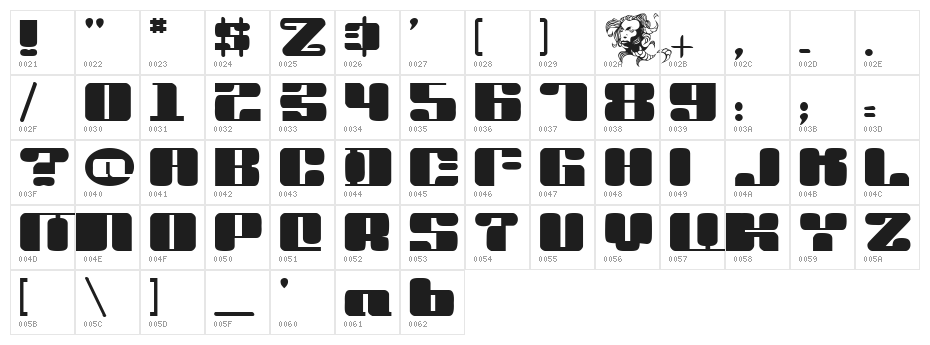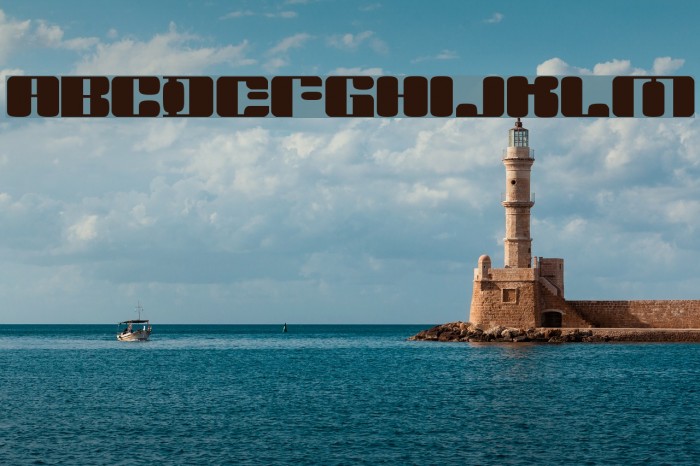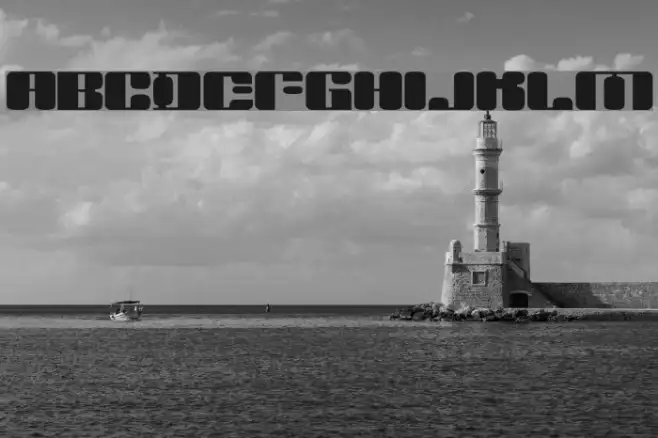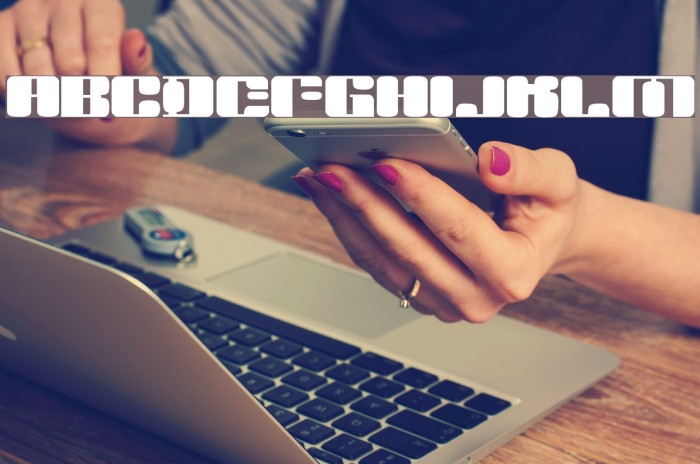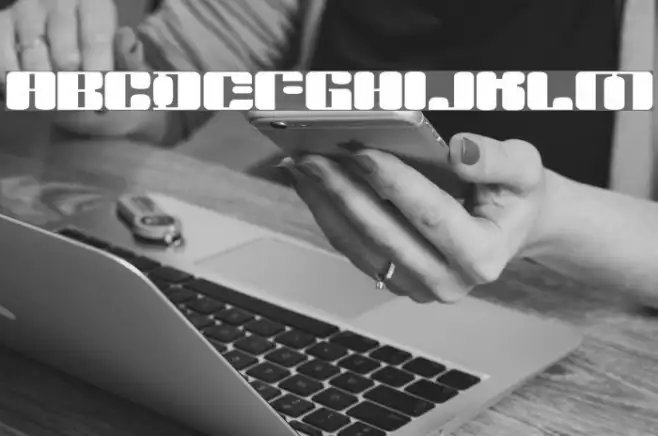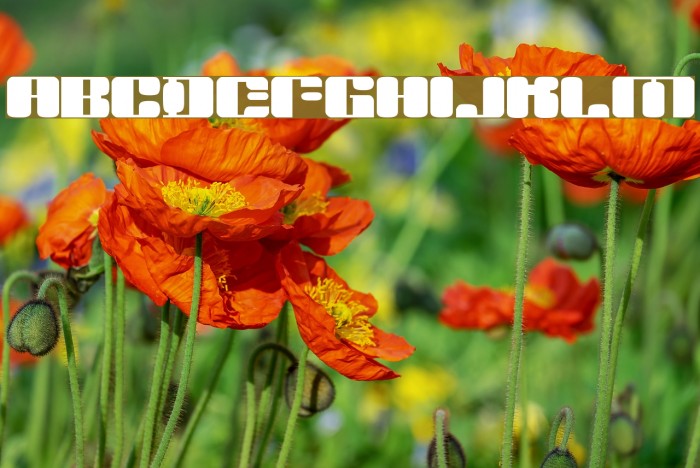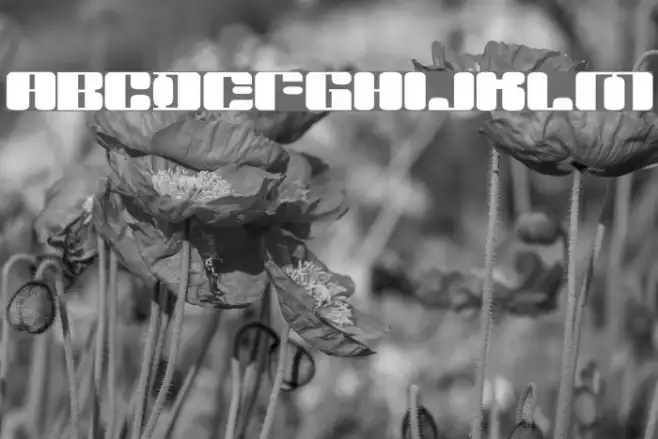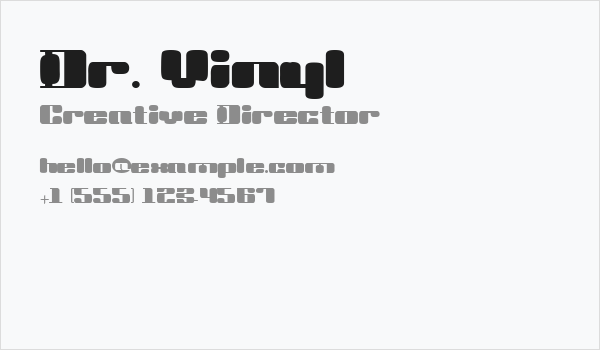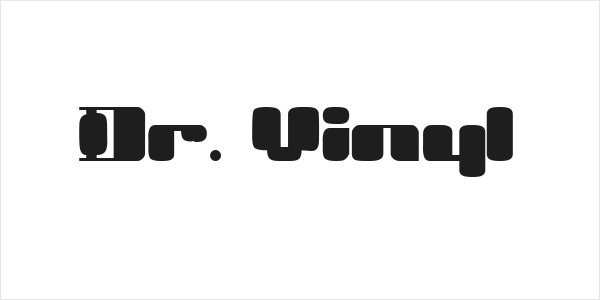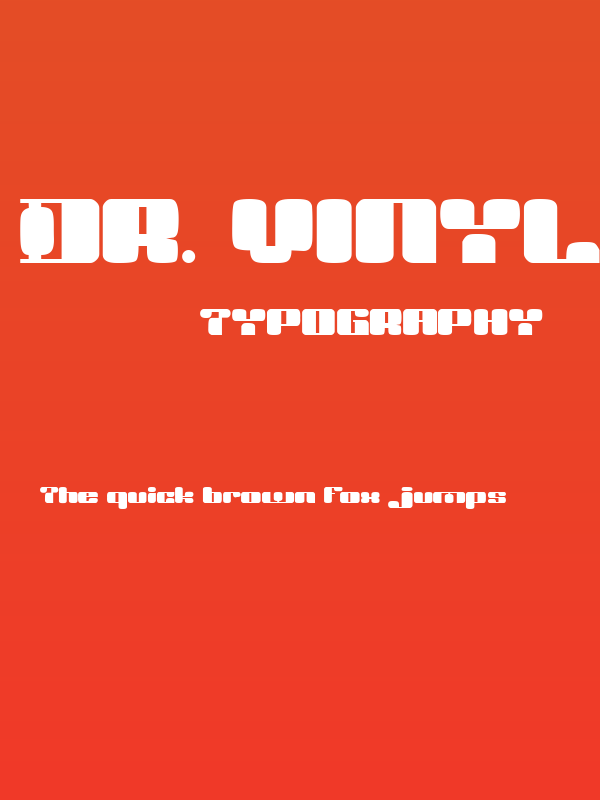
Dr. Vinyl Font
Dr. Vinyl Description
This font features a bold, geometric design with a strong presence. The characters are constructed with thick, block-like shapes that create a sense of solidity and impact. The uppercase and lowercase letters maintain a consistent style, with rounded edges and uniform stroke widths. The numbers and special characters follow the same design principles, ensuring a cohesive look across all elements. The font's unique style is both modern and slightly retro, making it versatile for various design applications.
| Overall Style | Modern, Retro |
| Proposed Projects | Ideal for posters, album covers, branding, and any project requiring a bold, impactful typeface. |